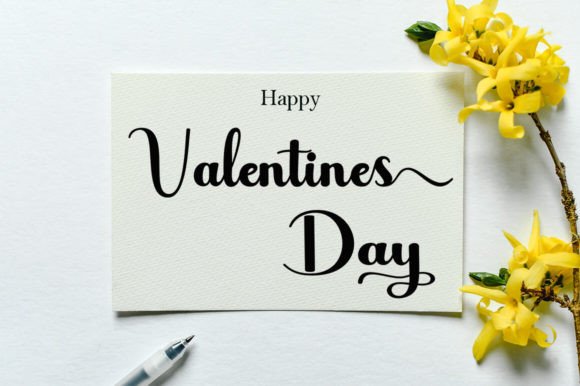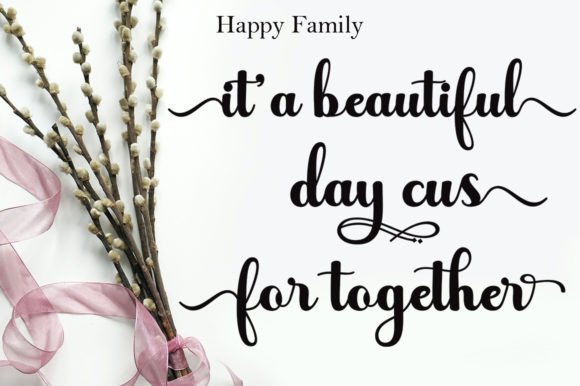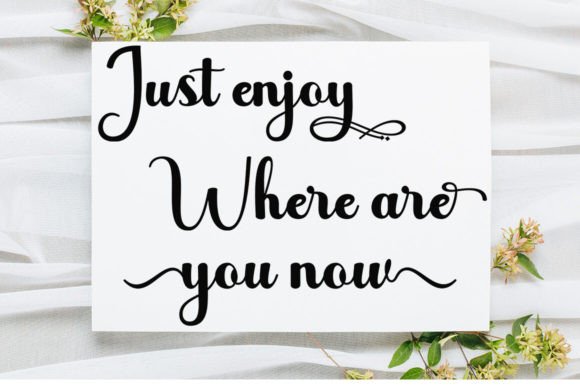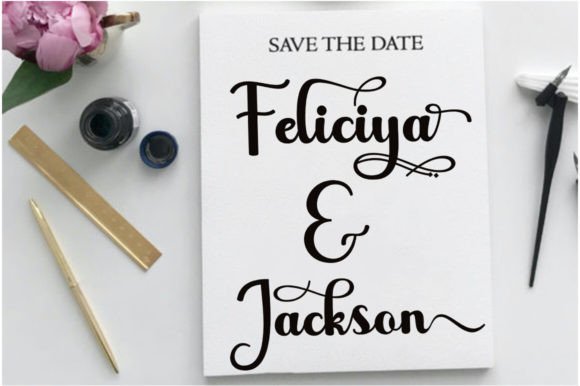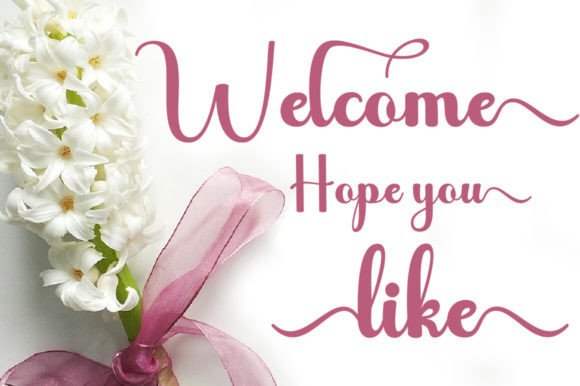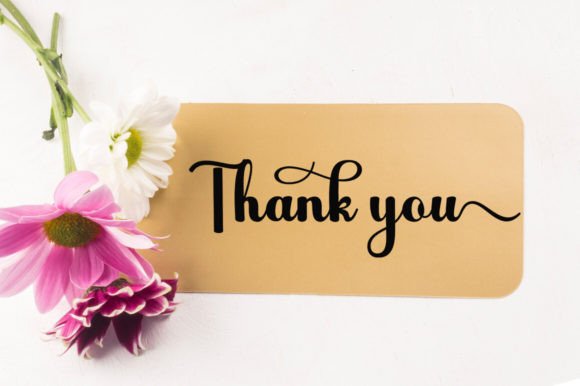
Introducing Feliciya Font: A Modern Calligraphy Design for Creative Projects
Are you a designer or crafter looking for a beautiful and versatile font to elevate your creative projects? Look no further than Feliciya Font, a stunning modern calligraphy design that is sure to impress. With its casual and elegant style, Feliciya Script is perfect for a wide range of applications, from logos and product packaging to wedding invitations, branding, and more.
What Makes Feliciya Font So Special?
Feliciya Script is a modern calligraphy design that features a regular style with beautiful swashes. The font is encoded with PUA Unicode, which allows full access to all additional characters without having to design special software. This makes it easy for users to access and insert special characters into their favorite text editor or application.
Uses for Feliciya Font
Feliciya Script is an incredibly versatile font that can be used for a wide range of creative projects, including:
• Logos: Create a stunning logo for your business or brand with Feliciya Script.
• Product Packaging: Add a touch of elegance to your product packaging with this beautiful font.
• Wedding Invitations: Make your wedding invitations truly special with Feliciya Script.
• Branding: Use Feliciya Script to create a consistent brand identity across all your marketing materials.
• Headlines: Add a pop of personality to your headlines with this eye-catching font.
• Signage: Create eye-catching signage for your business or event with Feliciya Script.
• Labels: Add a touch of elegance to your labels with this beautiful font.
• Signatures: Use Feliciya Script to create a unique and stylish signature.
• Book Covers: Create a stunning book cover with Feliciya Script.
• Posters: Make your posters truly stand out with this beautiful font.
• Quotes: Add a touch of elegance to your quotes with Feliciya Script.
Why Choose Feliciya Font?
Feliciya Script is a high-quality font that offers a unique and stylish alternative to traditional fonts. With its modern calligraphy design and beautiful swashes, it’s perfect for designers and crafters who want to add a touch of elegance to their creative projects.
Whether you’re looking to create a stunning logo, elegant wedding invitations, or eye-catching signage, Feliciya Script is the perfect choice. Its versatility and ease of use make it a must-have font for any designer or crafter.
Font Name Feliciya Font
Author Naiza Studio
In conclusion, Feliciya Font is a beautiful and versatile modern calligraphy design that is perfect for a wide range of creative projects. With its elegant style, beautiful swashes, and ease of use, it’s a must-have font for designers and crafters. Whether you’re looking to create a stunning logo, elegant wedding invitations, or eye-catching signage, Feliciya Script is the perfect choice.